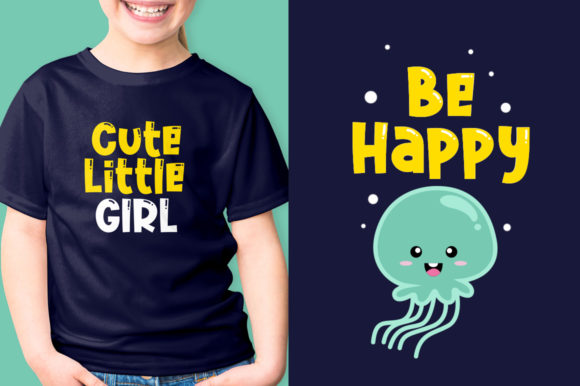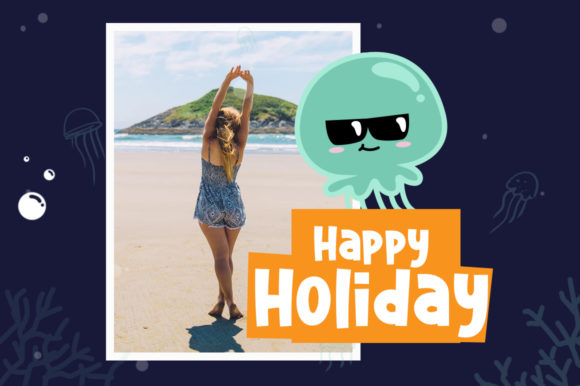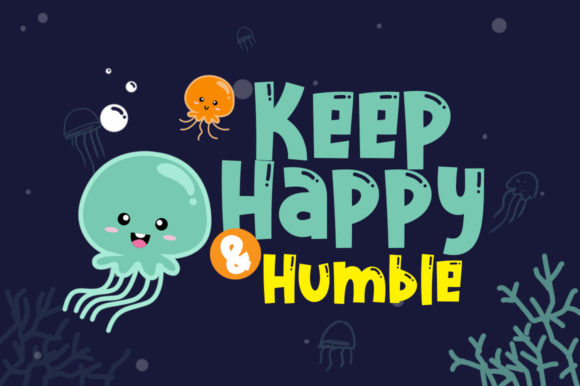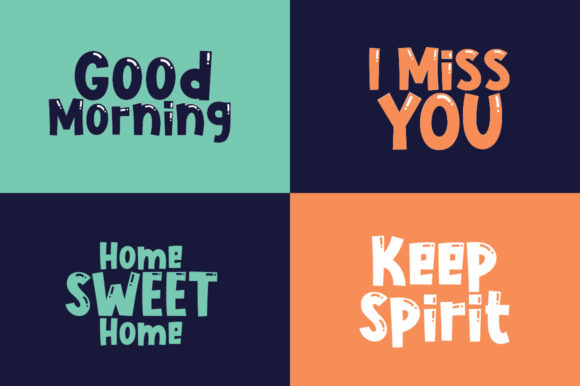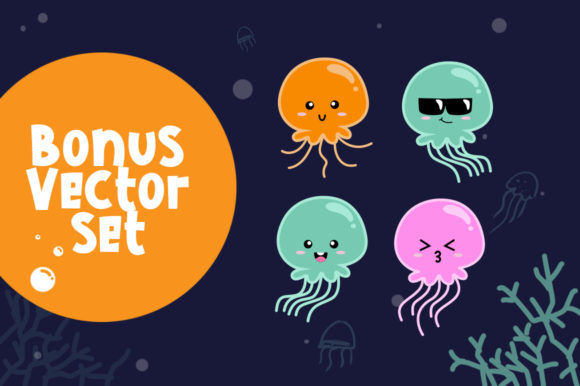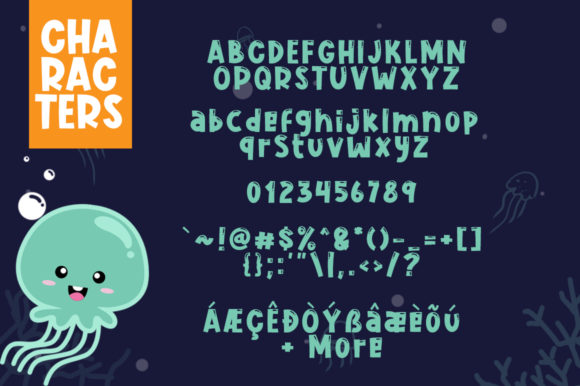
Cute Jellyfish Font: Add a Whimsical Touch to Your Creative Projects
Are you looking for a font that can add a playful and cheerful vibe to your creative projects? Look no further than the Cute Jellyfish Font! This bold display typeface is perfect for designers and crafters who want to infuse their work with a sense of whimsy and fun. In this article, we’ll take a closer look at the Cute Jellyfish Font, its features, and how you can use it to elevate your designs.
What is Cute Jellyfish Font?
The Cute Jellyfish Font is a bold display typeface that is designed to bring a cheerful and playful vibe to your creative projects. With its unique and quirky design, this font is perfect for adding a touch of whimsy to your designs. Whether you’re working on a graphic design project, crafting a handmade card, or creating a digital illustration, the Cute Jellyfish Font is sure to make your work stand out.
Key Features of Cute Jellyfish Font
- Bold and playful design: The Cute Jellyfish Font features a bold and playful design that is sure to grab attention.
- Whimsical vibe: This font has a whimsical vibe that is perfect for creative projects that require a touch of fun and playfulness.
- Easy to read: Despite its bold and playful design, the Cute Jellyfish Font is easy to read, making it perfect for use in a variety of creative projects.
- Versatile: This font is versatile and can be used in a variety of creative projects, from graphic design to crafting.
How to Use Cute Jellyfish Font
The Cute Jellyfish Font is easy to use and can be incorporated into a variety of creative projects. Here are a few ideas to get you started:
- Graphic design projects: Use the Cute Jellyfish Font to add a playful touch to your graphic design projects, such as brochures, posters, and flyers.
- Handmade cards and invitations: Add a personal touch to your handmade cards and invitations with the Cute Jellyfish Font.
- Digital illustrations: Use the Cute Jellyfish Font to add a whimsical touch to your digital illustrations.
- Crafting projects: Incorporate the Cute Jellyfish Font into your crafting projects, such as scrapbooking and journaling.
Benefits of Using Cute Jellyfish Font
There are several benefits to using the Cute Jellyfish Font in your creative projects. Here are a few:
- Adds a playful touch: The Cute Jellyfish Font adds a playful touch to your creative projects, making them more engaging and fun.
- Stand out from the crowd: With its unique and quirky design, the Cute Jellyfish Font can help your creative projects stand out from the crowd.
- Easy to use: This font is easy to use and can be incorporated into a variety of creative projects.
- Versatile: The Cute Jellyfish Font is versatile and can be used in a variety of creative projects.
Tips for Using Cute Jellyfish Font
Here are a few tips for using the Cute Jellyfish Font in your creative projects:
- Use it sparingly: While the Cute Jellyfish Font is playful and fun, it can be overwhelming if used too much. Use it sparingly to add a touch of whimsy to your designs.
- Pair it with other fonts: Pair the Cute Jellyfish Font with other fonts to create a unique and interesting design.
- Experiment with colors: Experiment with different colors to find the perfect combination for your design.
The Cute Jellyfish Font is a bold display typeface that is perfect for adding a playful and cheerful vibe to your creative projects. With its unique and quirky design, this font is sure to make your work stand out. Whether you’re a designer or crafter, the Cute Jellyfish Font is a great addition to your font collection. So why not give it a try and see how it can elevate your designs?